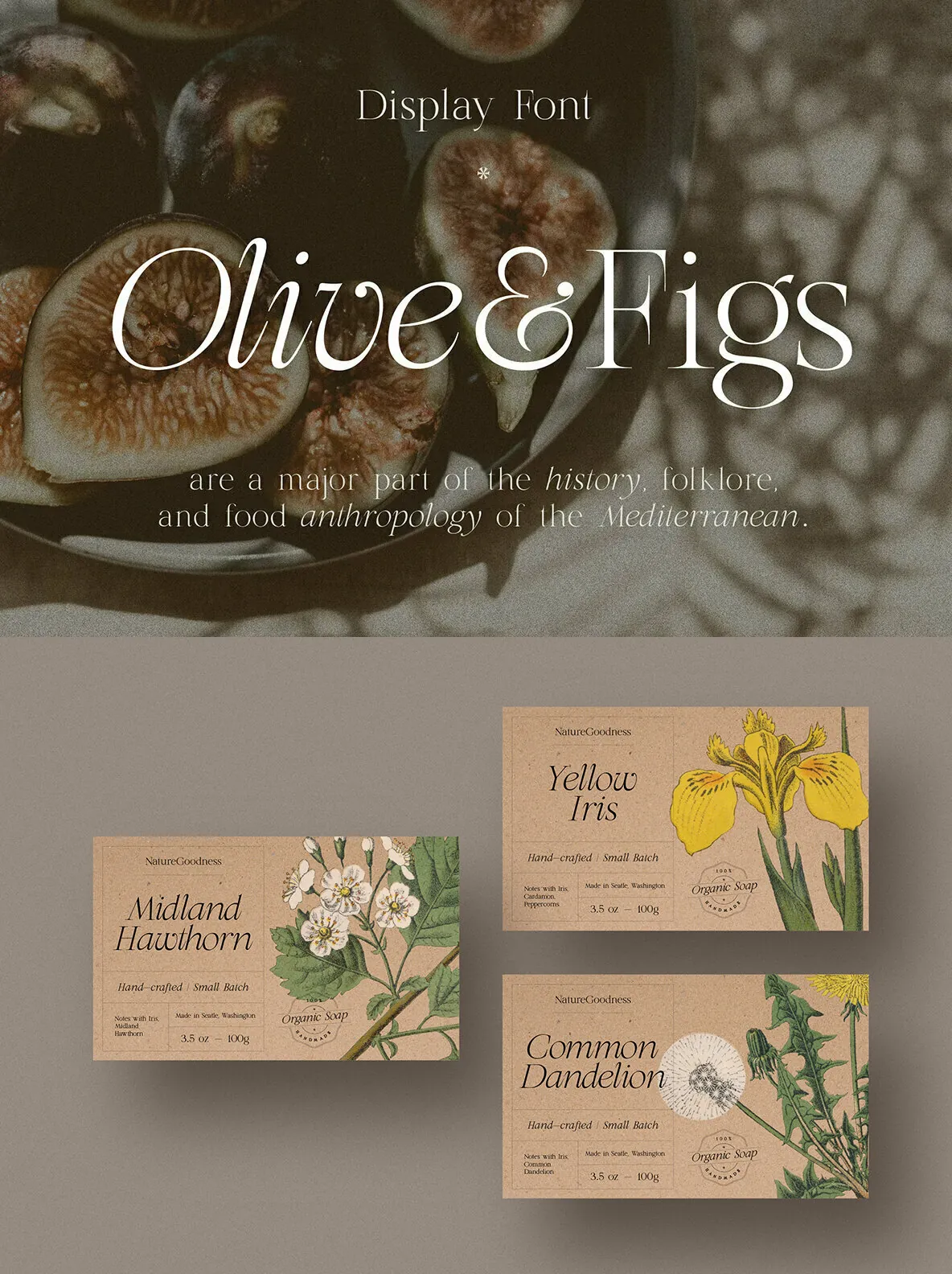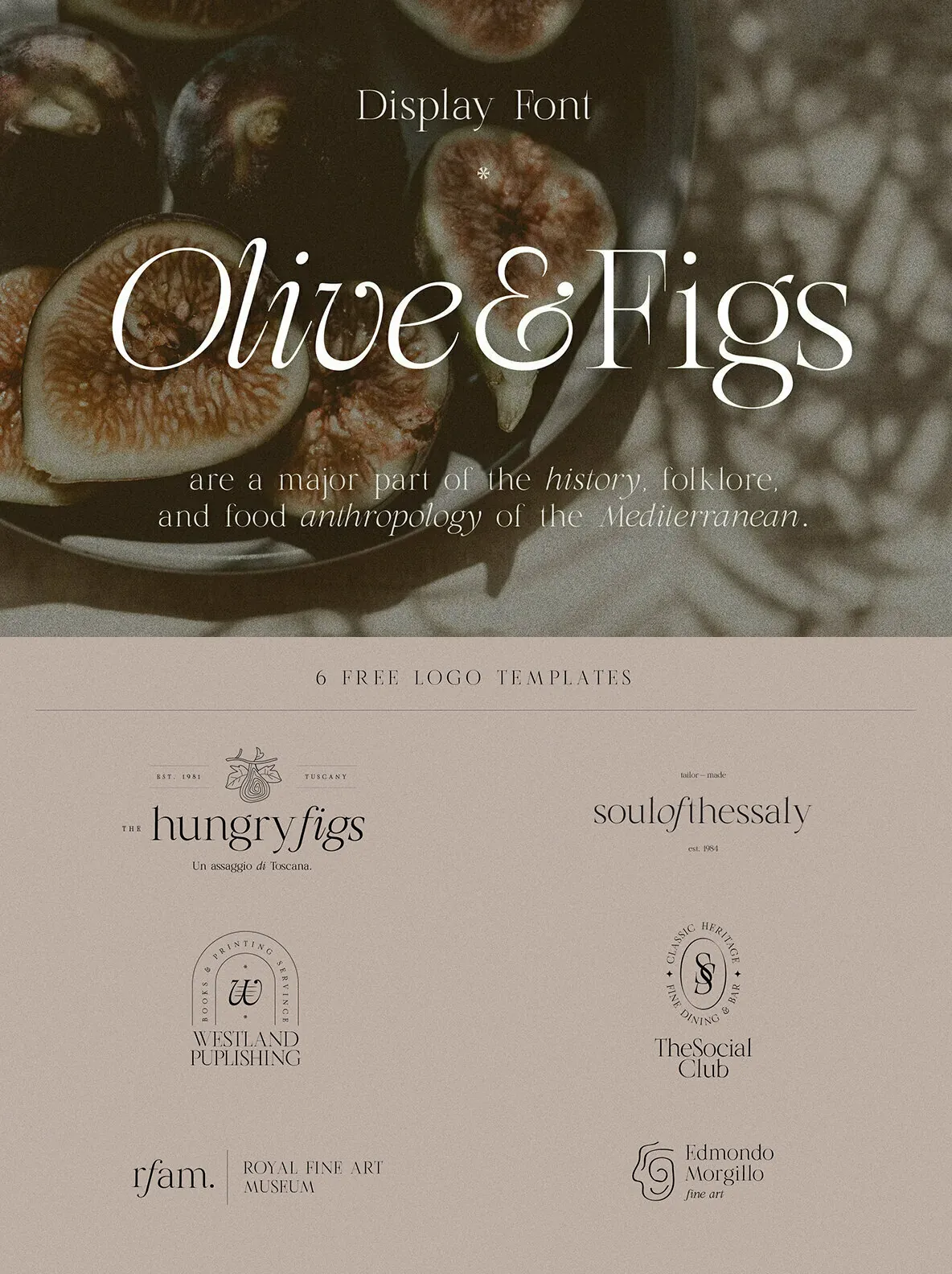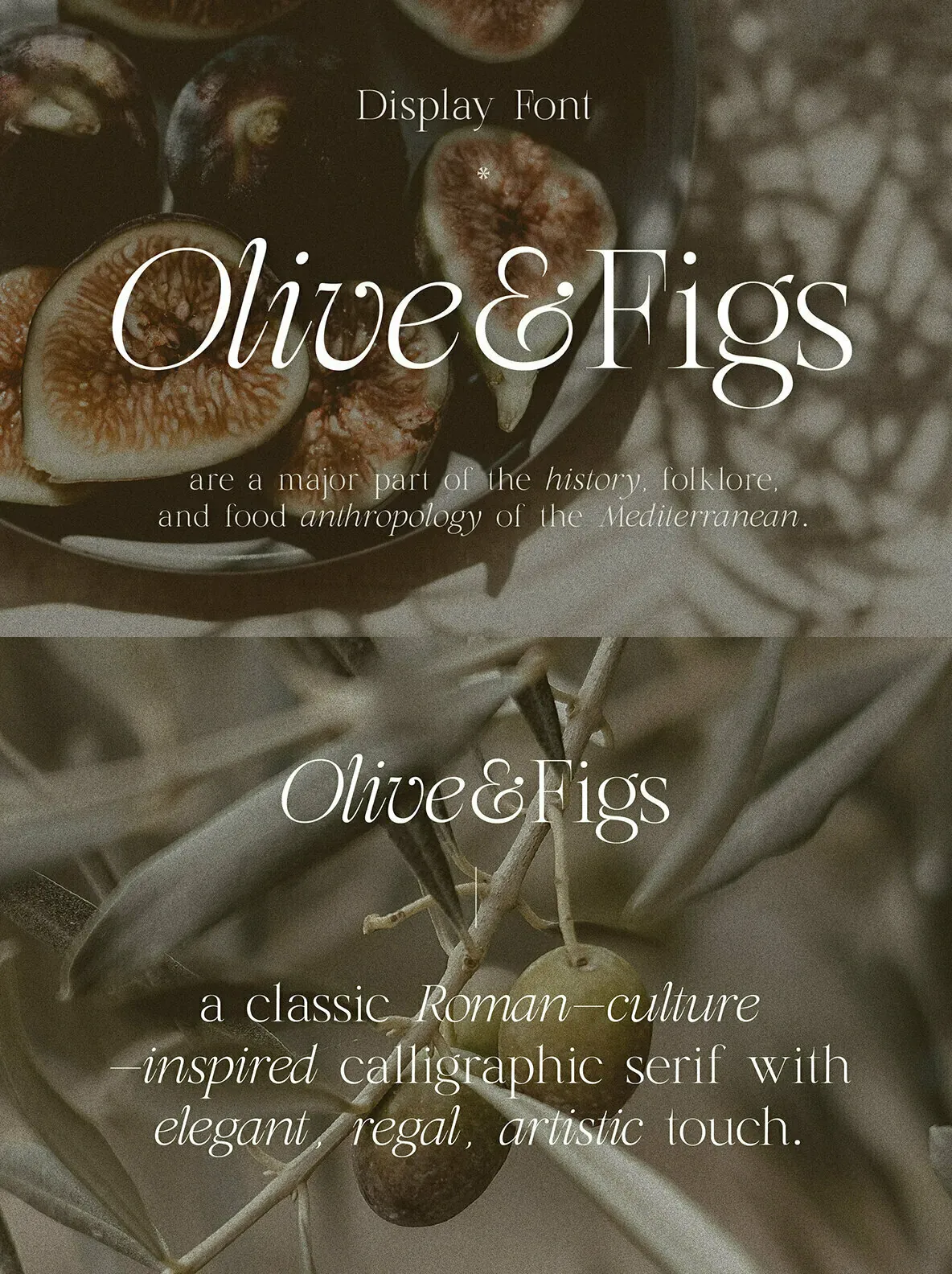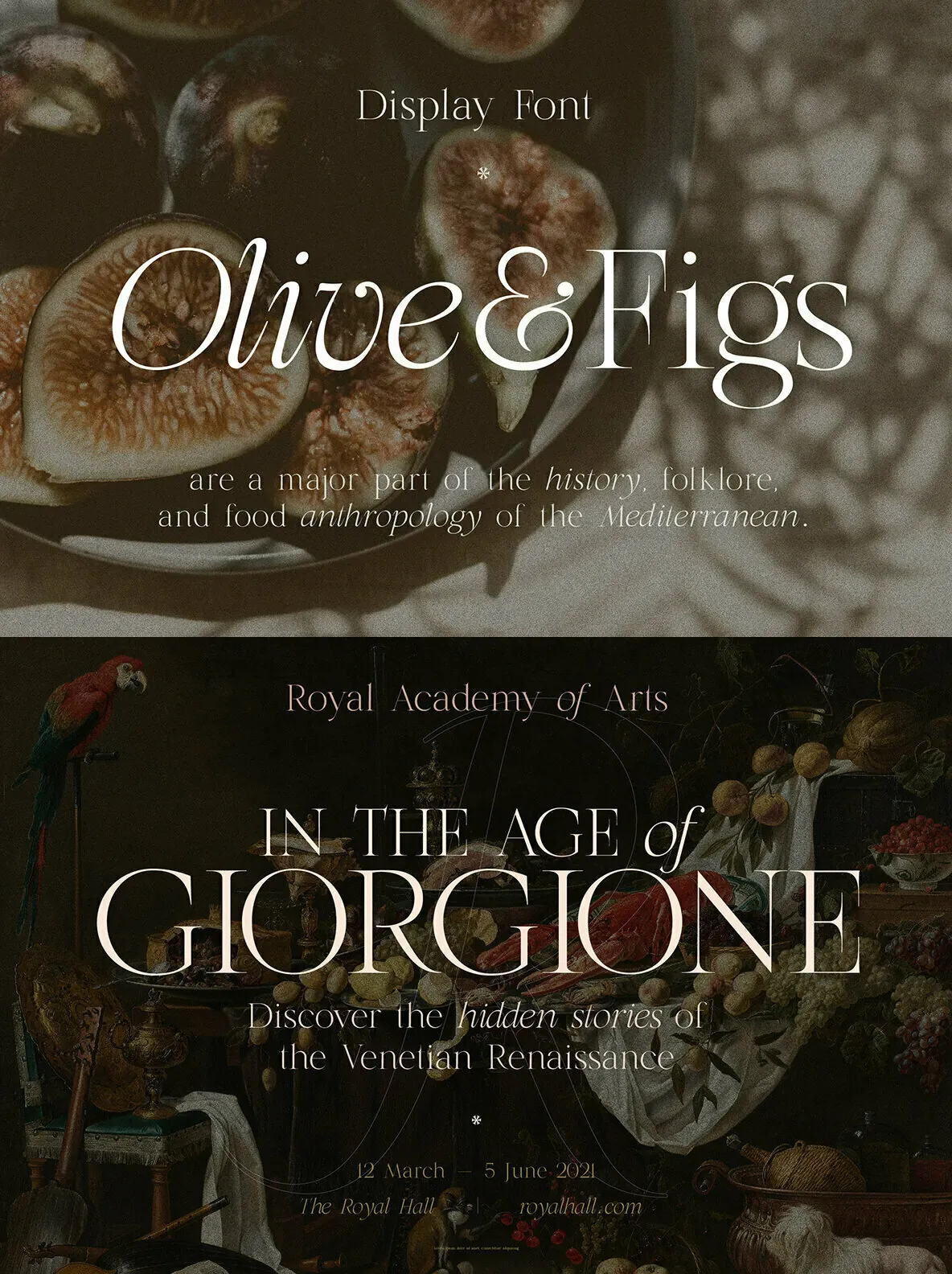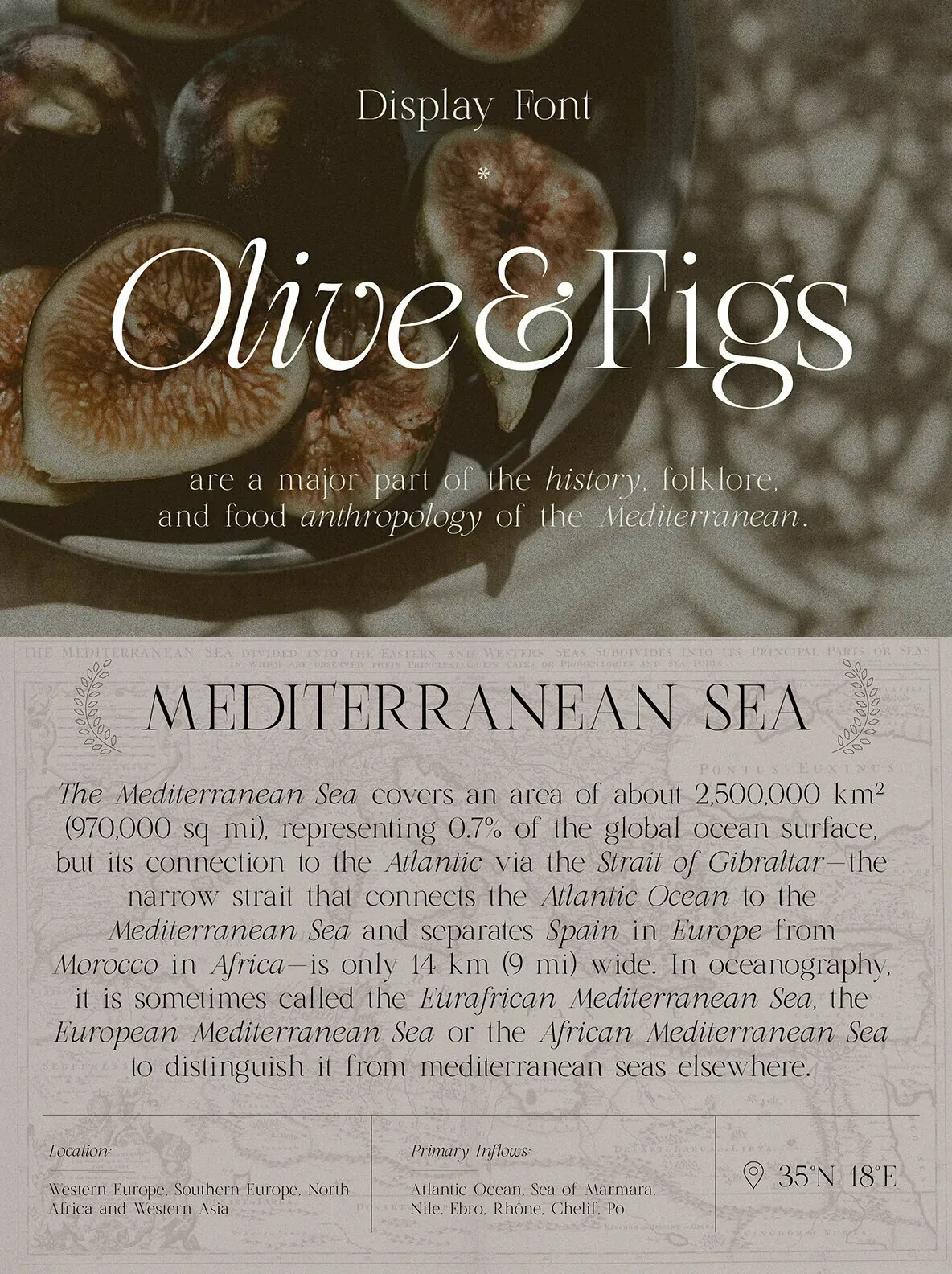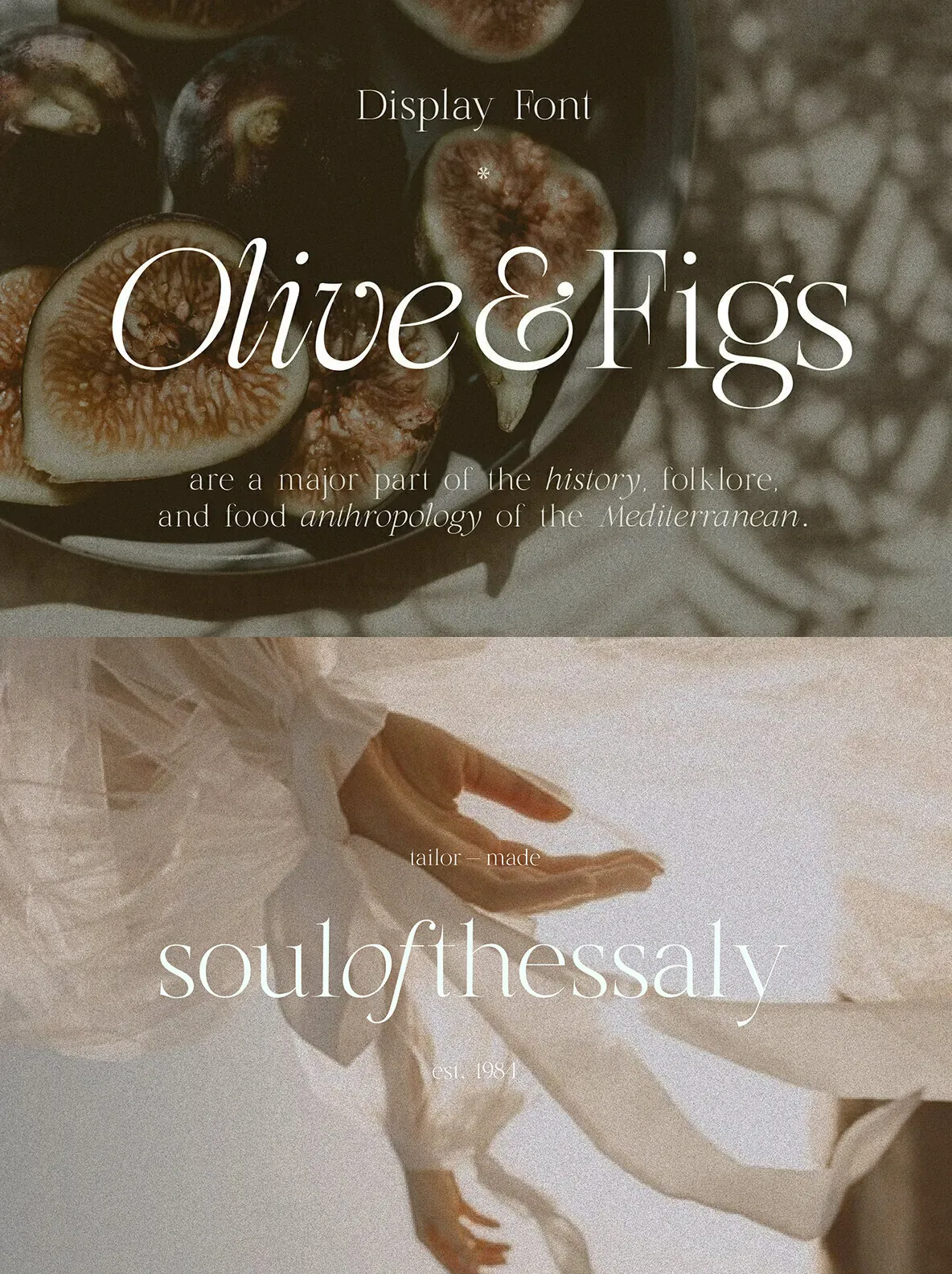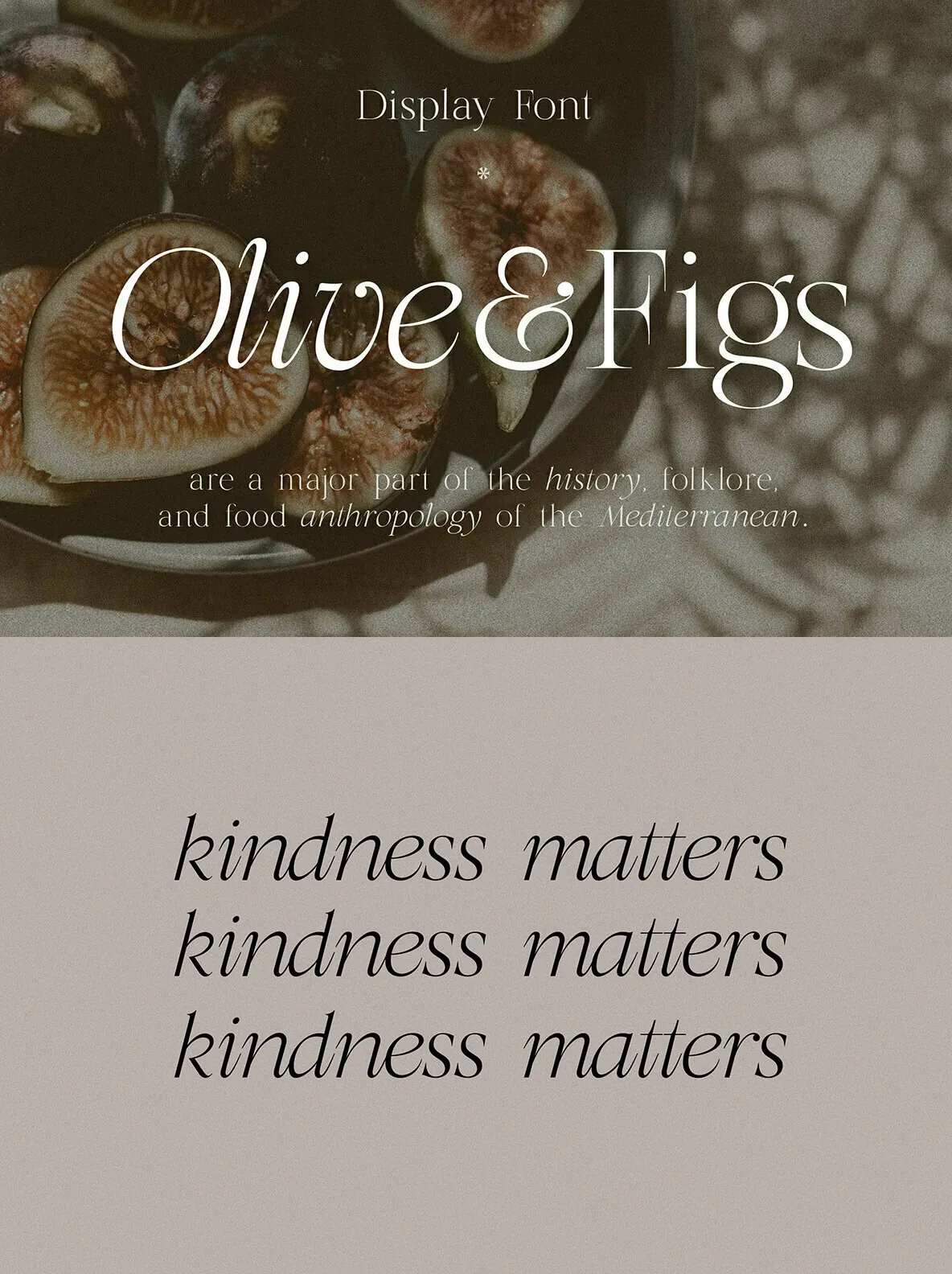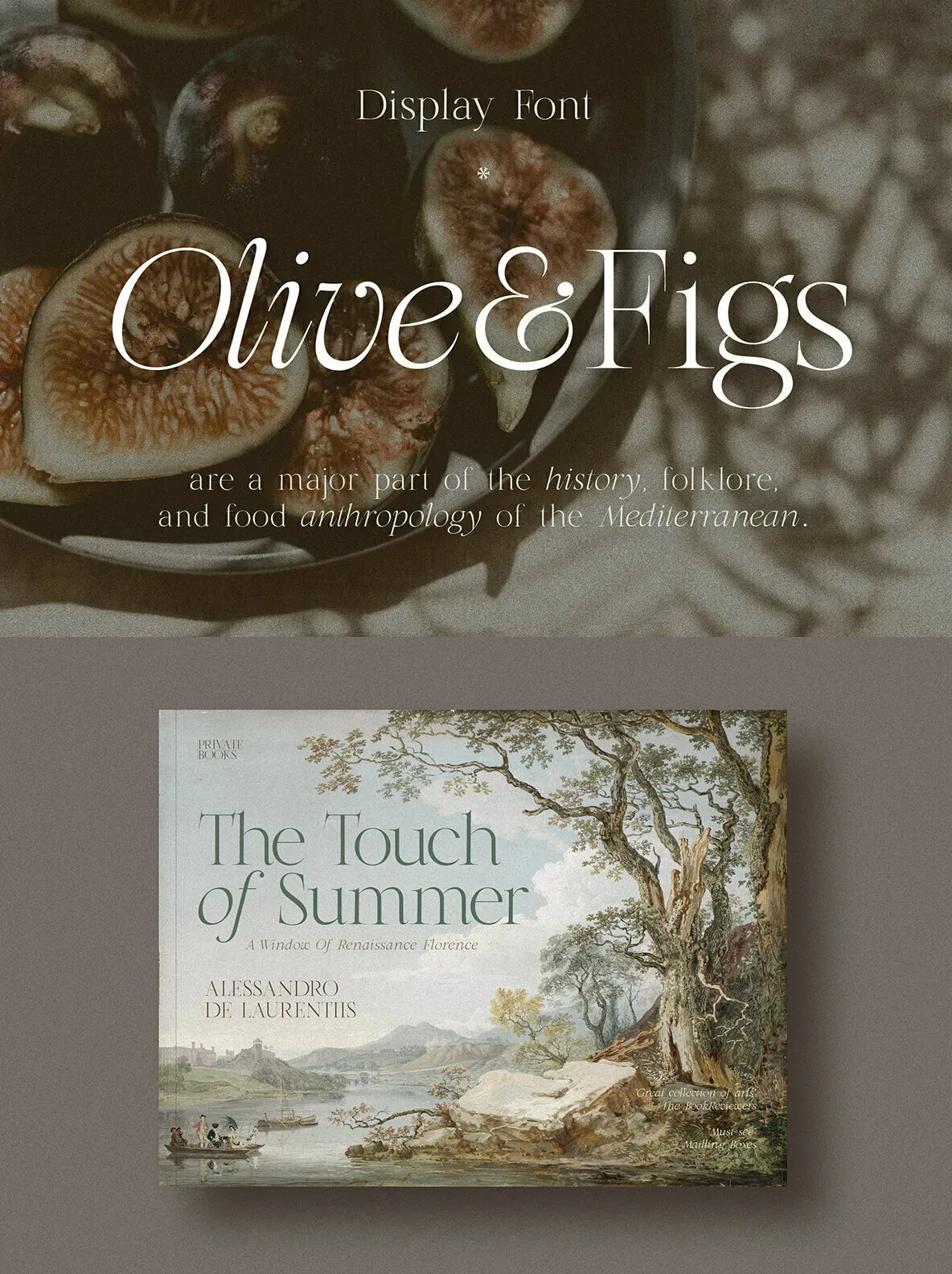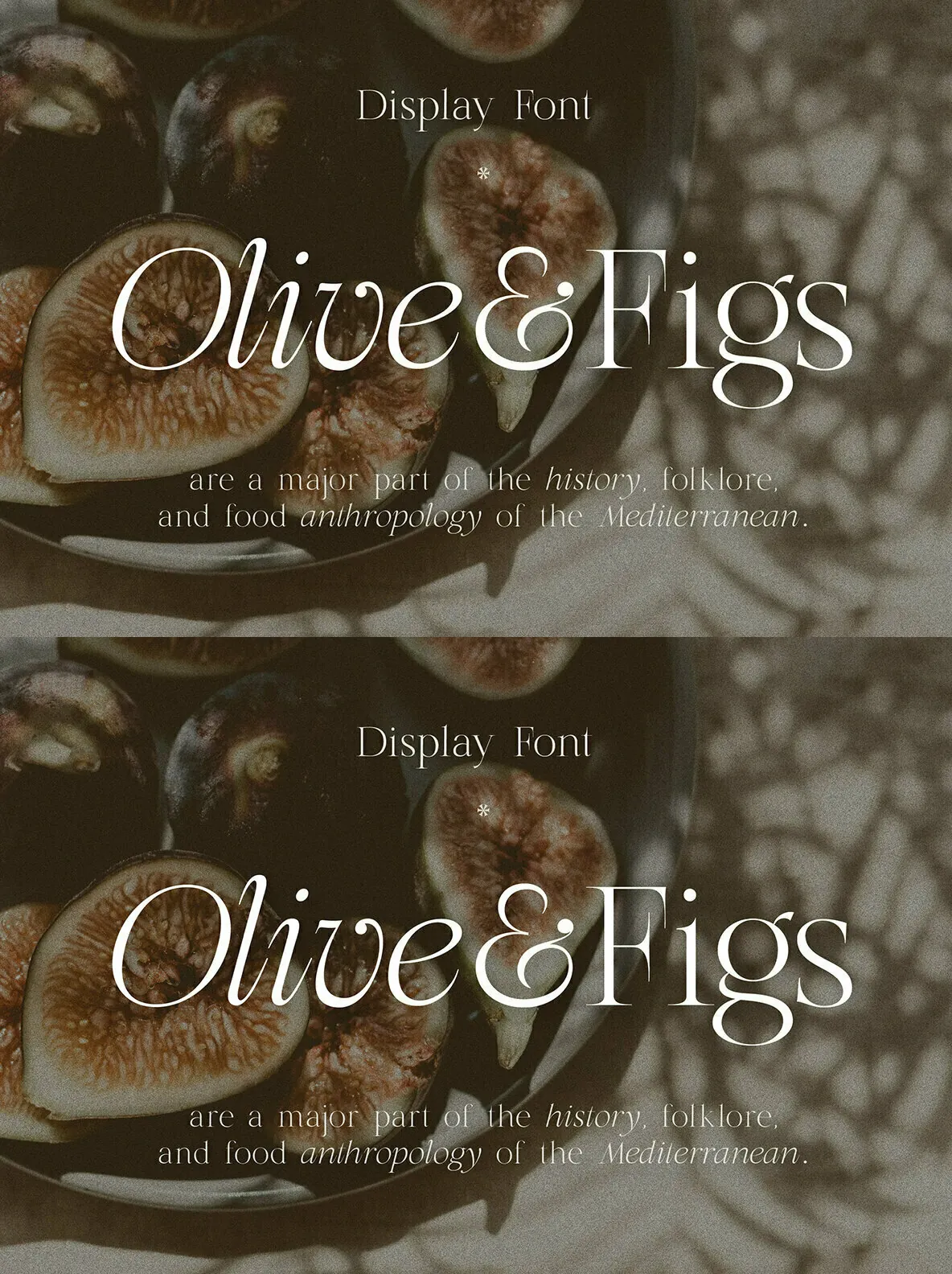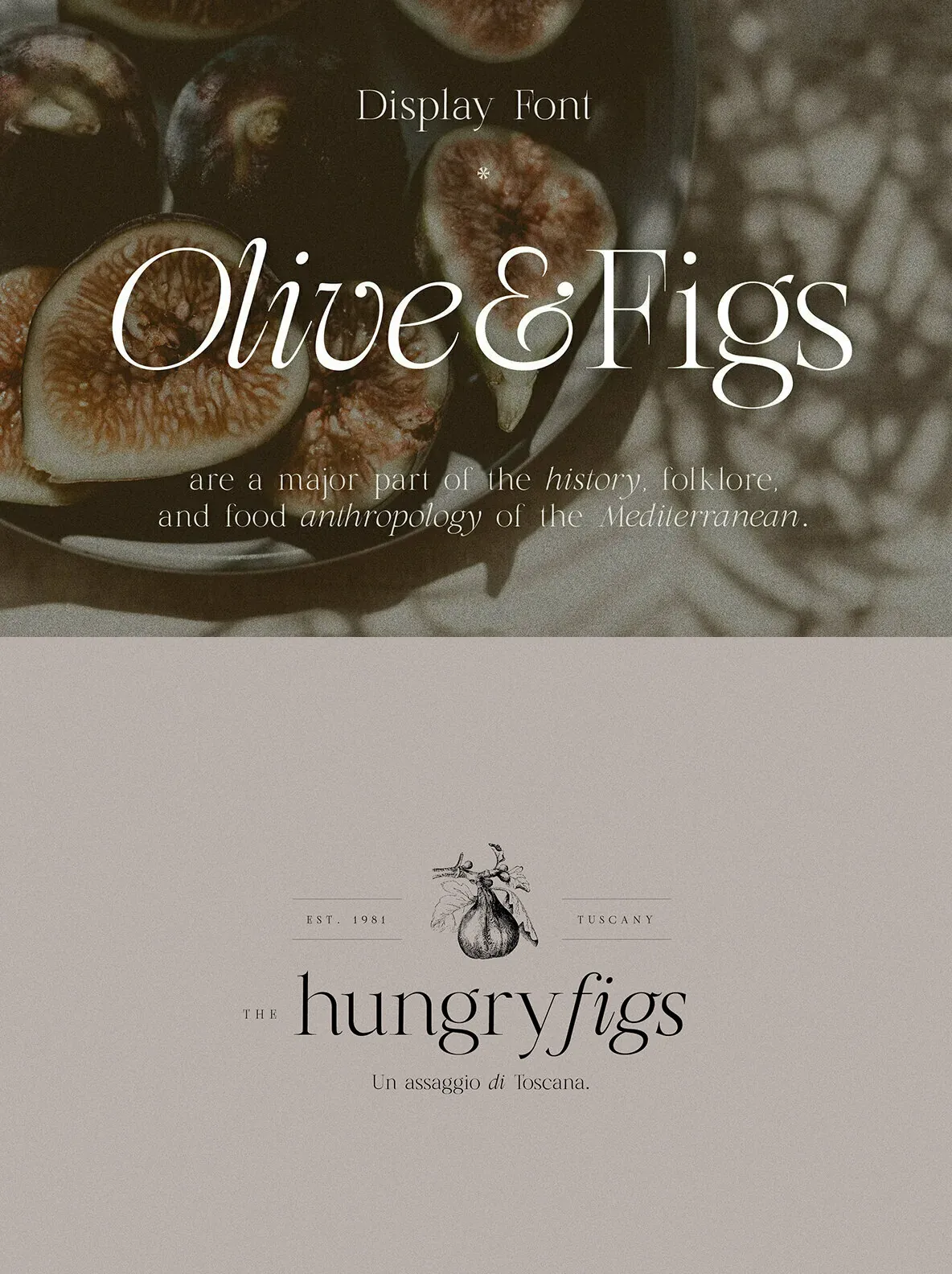
Olive & Figs – a classic Roman-culture-inspired calligraphic serif with an elegant, regal, artistic touch. Specially designed for regal, classy projects, perfectly suitable for creating elegant, simple, lifestyle designs such as logos, title, packaging, and more. 6 free logo templates.